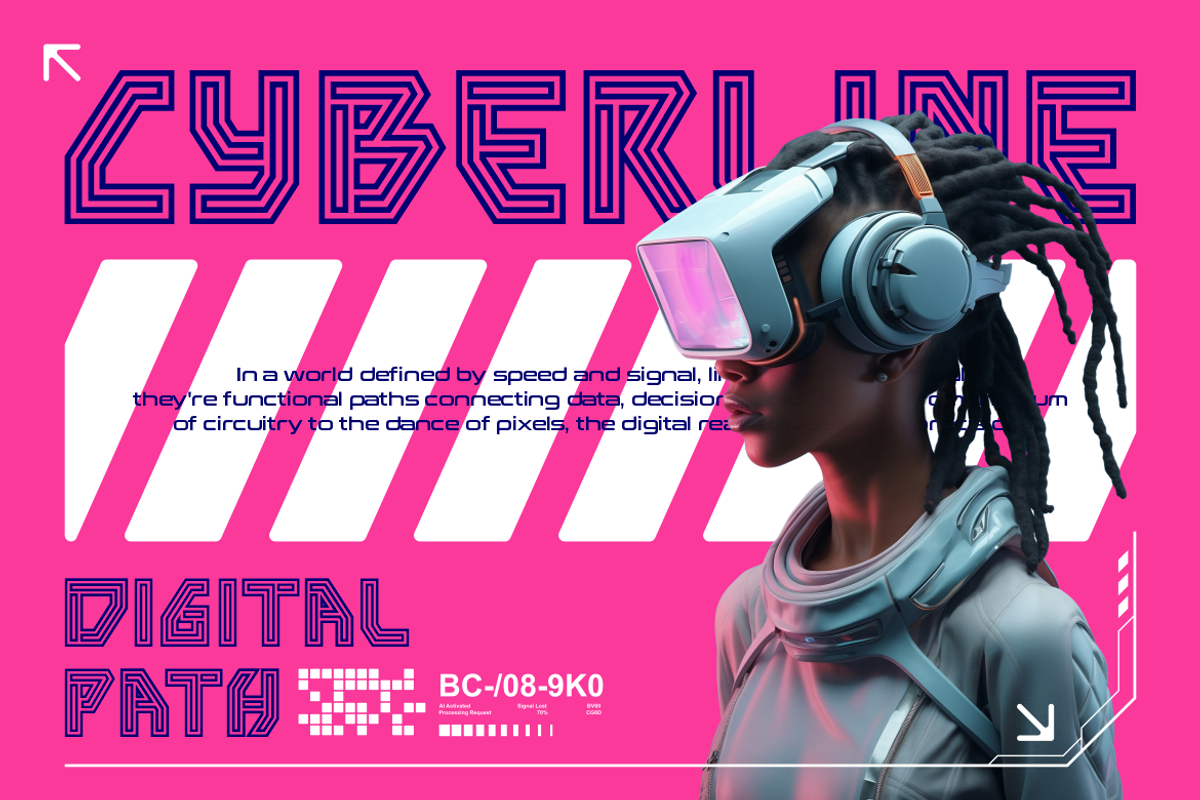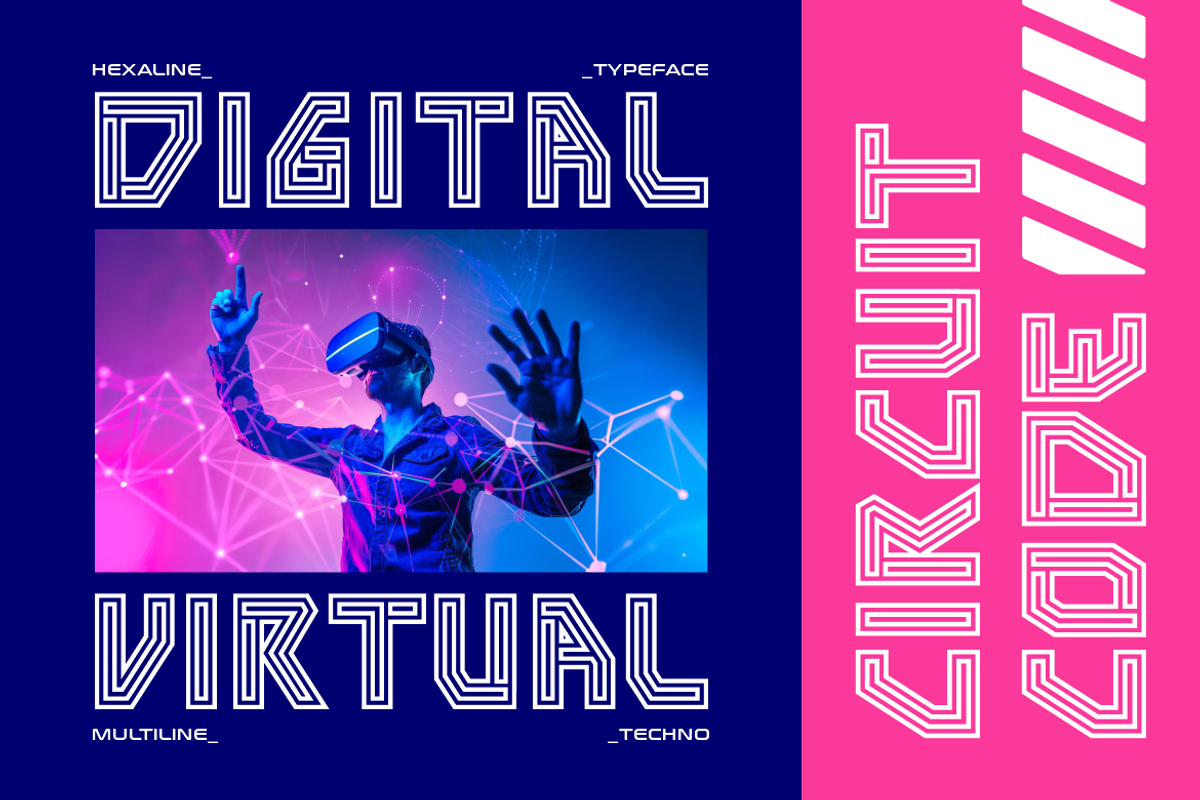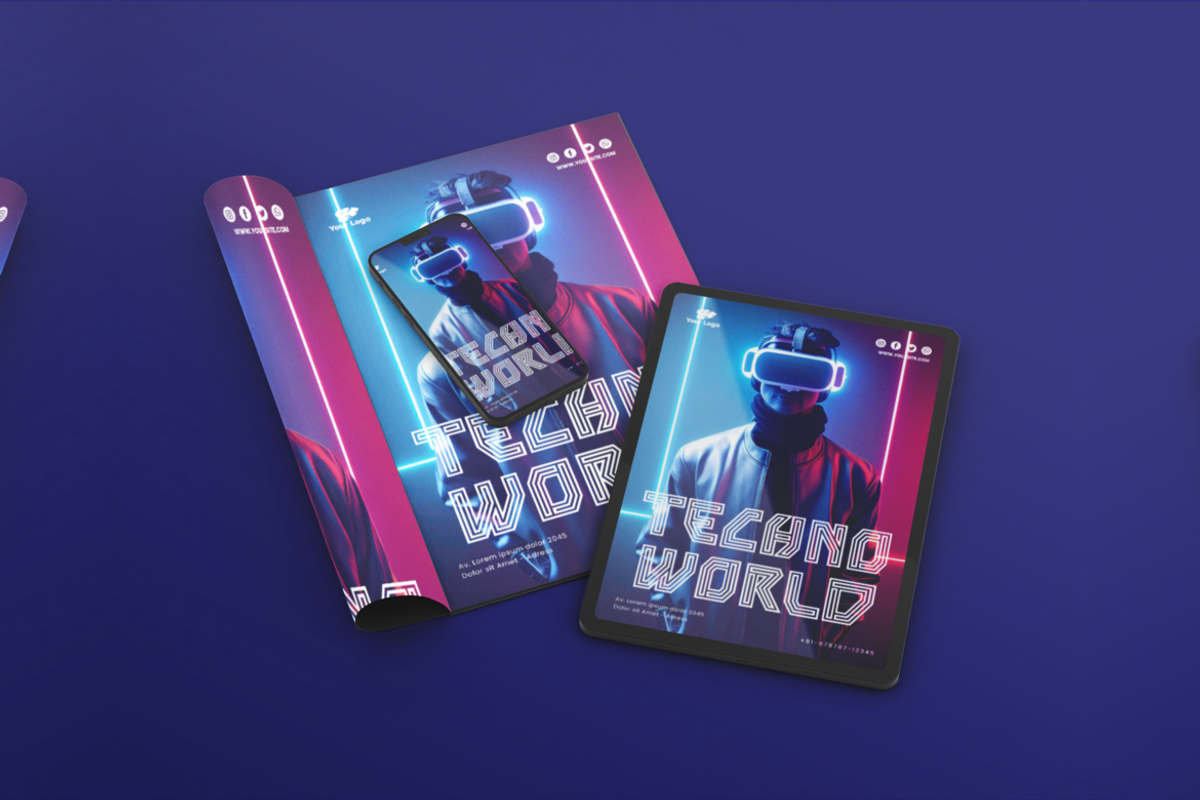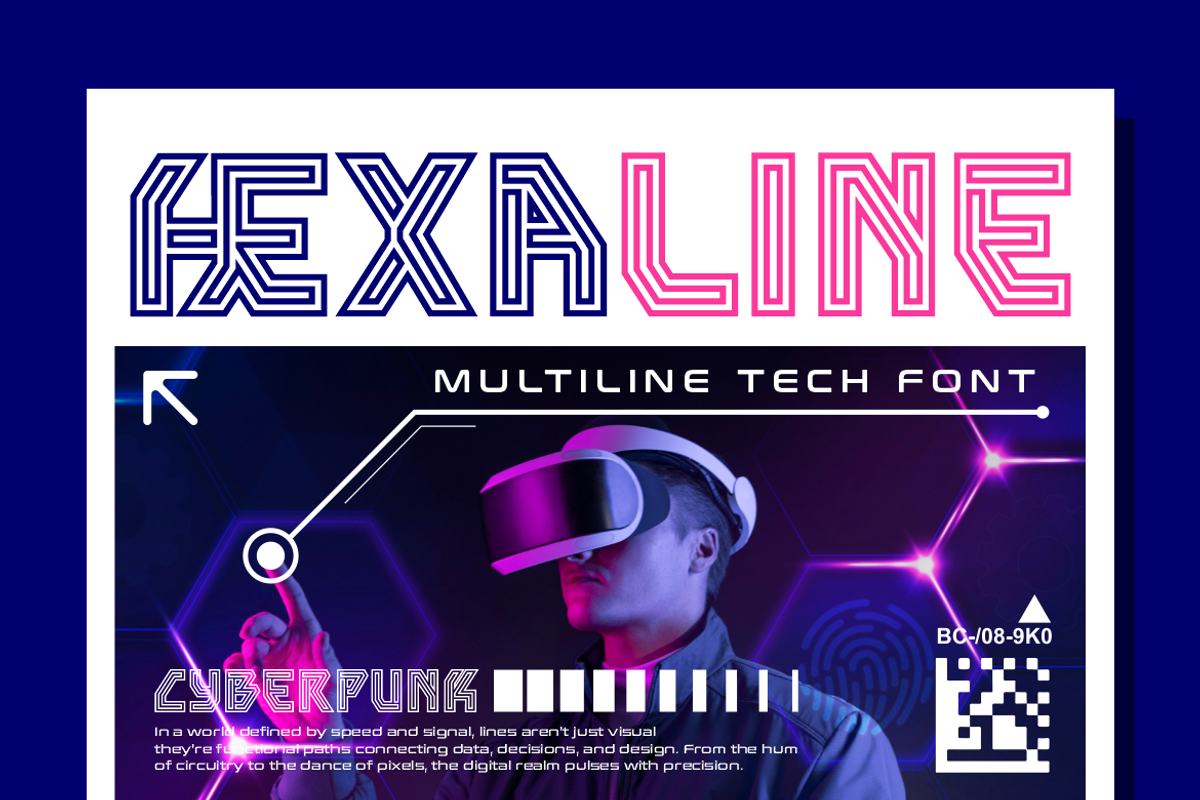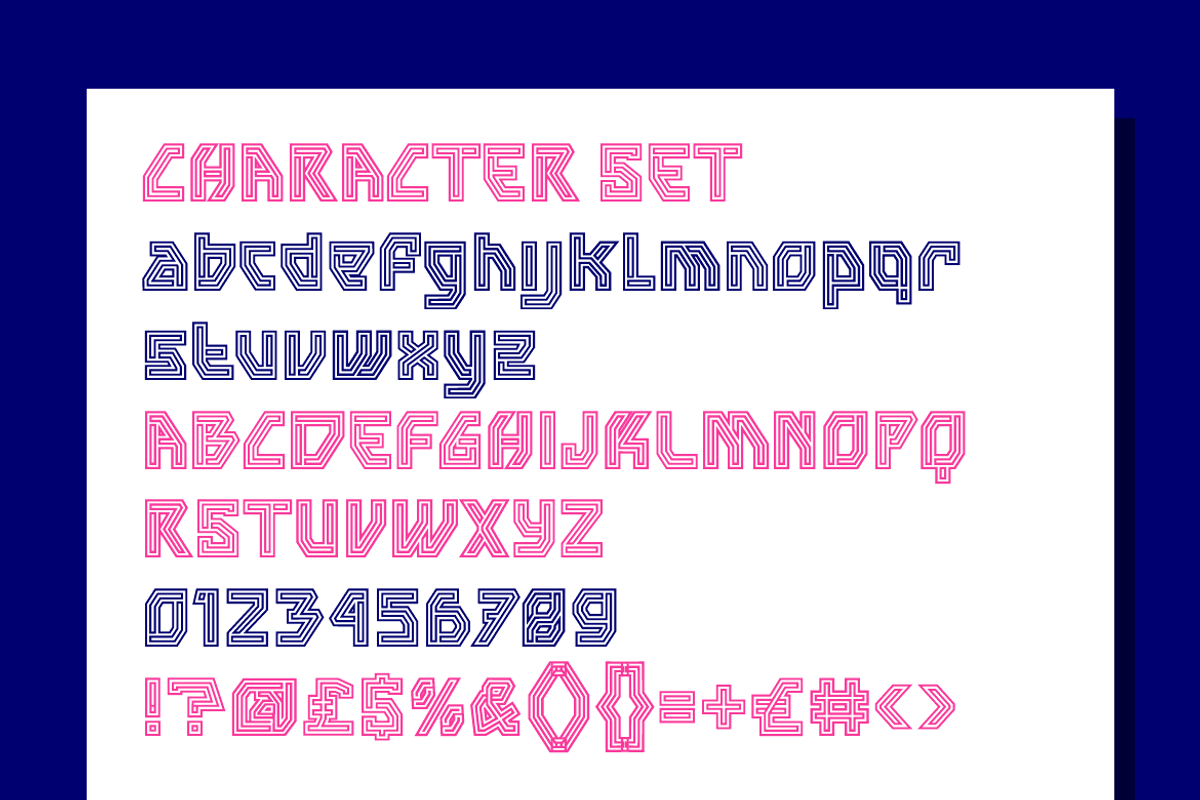
Hexaline Multiline Tech Font
Hexaline Multiline Tech Font is a futuristic typeface designed for projects that demand a modern digital edge. Each letterform is built with clean, geometric paths that create a multi-line effect, giving the font a distinctive circuit-inspired look. Its sharp corners, precise angles, and open letter shapes make it stand out in technology-driven designs. The dual-tone possibilities enhance its neon aesthetic, perfect for glowing effects, holographic themes, and cyberpunk-inspired visuals. This font offers uppercase, lowercase, numbers, punctuation, and symbols, ensuring flexibility for a wide range of creative applications.
Ideal for logos, branding, posters, packaging, and digital media, Hexaline excels in both print and screen use. It’s a natural fit for sci-fi titles, VR and AR promotions, tech startup identities, and futuristic event posters. The crisp multiline structure makes it easy to layer colors or add neon glows for an eye-catching result. Whether you are designing a high-tech brand identity or a retro-futuristic cover, Hexaline delivers clarity, style, and a strong technological character.